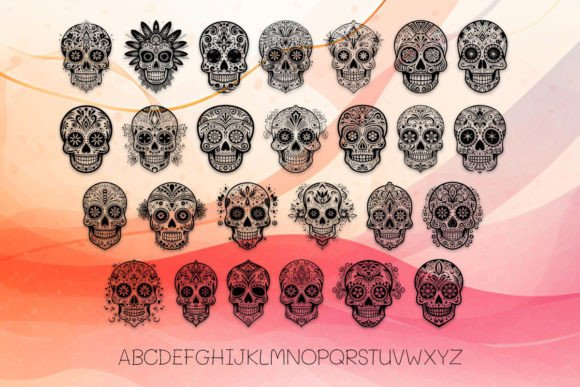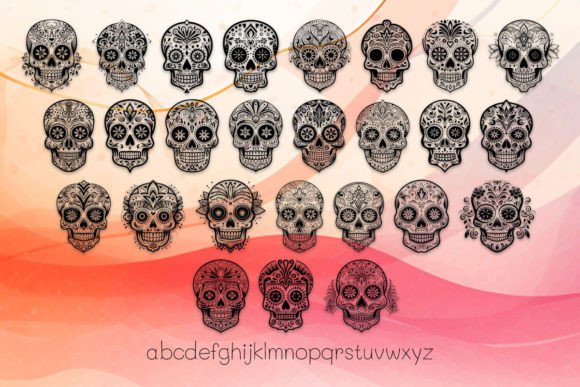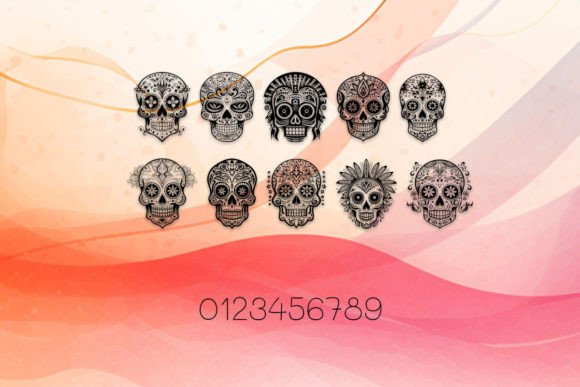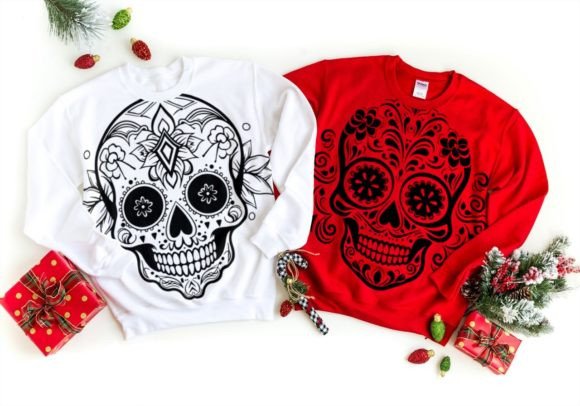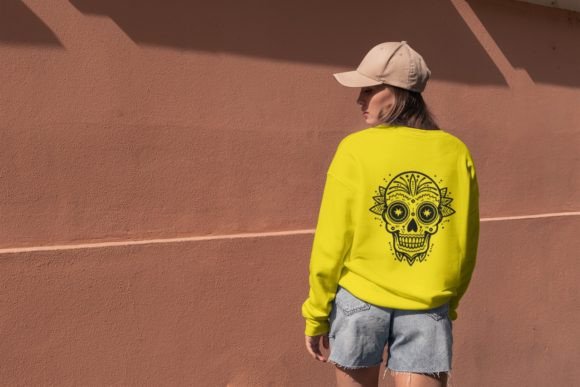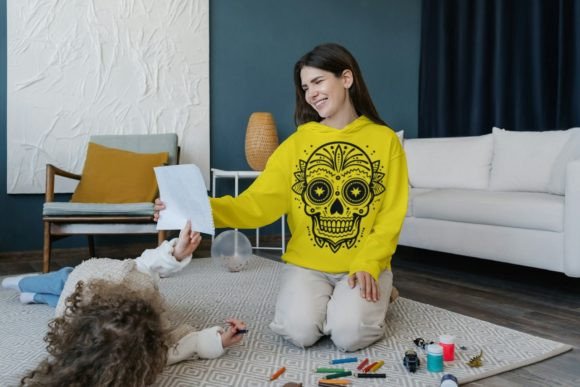
Unlock the Mystique of Aztec Tribal Art with Sugar Skull Fonts
I’ll never forget the design project that led me to discover the Aztec Tribal Sugar Skull Font. I was working on a vibrant Dia de los Muertos (Day of the Dead) celebration poster, and I needed a font that would capture the essence of this rich cultural heritage. After hours of searching, I stumbled upon this unique collection, and it instantly elevated my design. If you’re a designer, crafter, or creative hobbyist looking to infuse your projects with an exotic and vibrant touch, you’re in the right place!
What Makes Aztec Tribal Sugar Skull Fonts Special?
This stunning font collection boasts 62 characters, including 26 uppercase letters, 26 lowercase letters, and numbers 0 to 9. Inspired by Aztec tribal artistry and the symbolism of sugar skulls, these fonts add a touch of cultural richness and creativity to your designs. The Aztec Tribal Sugar Skull Font is perfect for designers who want to add a unique and eye-catching element to their work.
Honest Review: What I Love and What to Consider
- ✨ Unique and exotic design inspired by Aztec tribal artistry
- ✅ 62 characters, including uppercase and lowercase letters, and numbers
- ✅ Perfect for cultural and creative projects, such as Dia de los Muertos celebrations
- ✅ Easy to use and pairs well with other fonts
- ⚠️ Limited character set, may not be suitable for extensive text
- 🤔 May require some adjustments for optimal kerning and spacing
The Designer Inspiration Behind Aztec Tribal Sugar Skull Fonts
The Aztec Tribal Sugar Skull Font was inspired by the rich cultural heritage of the Aztecs and the symbolism of sugar skulls in Dia de los Muertos celebrations. The font’s designer was fascinated by the intricate details and vibrant colors of Aztec tribal artistry and sought to capture its essence in a unique and modern font.
| Font Name | Aztec Tribal Sugar Skull Font |
| Author | MOMAT THIRTYONE |
Q: What is the Aztec Tribal Sugar Skull Font inspired by?
A: The Aztec Tribal Sugar Skull Font is inspired by Aztec tribal artistry and the symbolism of sugar skulls in Dia de los Muertos celebrations.
Q: How many characters does the Aztec Tribal Sugar Skull Font have?
A: The Aztec Tribal Sugar Skull Font has 62 characters, including 26 uppercase letters, 26 lowercase letters, and numbers 0 to 9.
Q: Is the Aztec Tribal Sugar Skull Font easy to use?
A: Yes, the Aztec Tribal Sugar Skull Font is easy to use and pairs well with other fonts. It’s perfect for designers who want to add a unique and eye-catching element to their work.